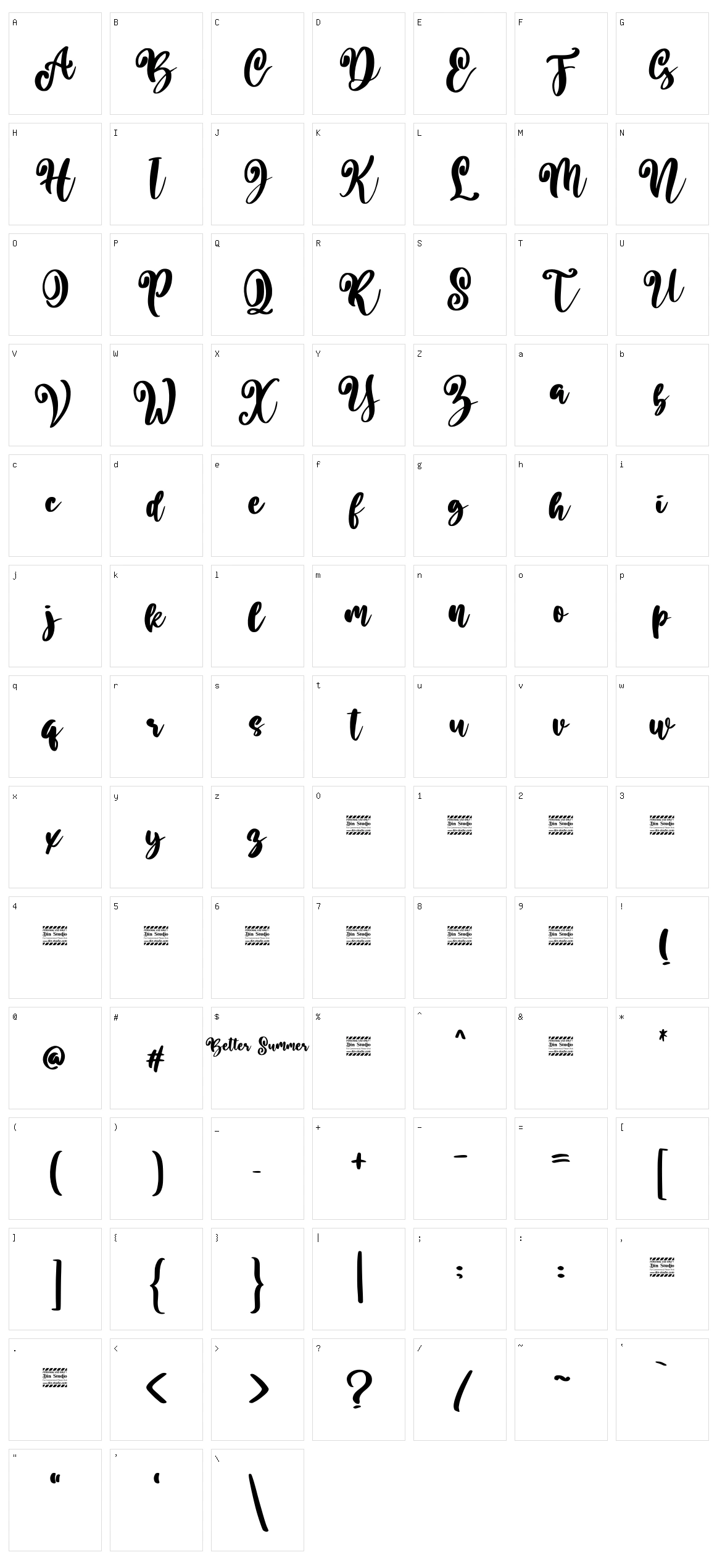
The free font Better Summer is carefully designed by Din Studio, showcasing a thoughtful balance of creativity and usability and falls under the Script font style. When you download the ZIP file, it contains only 298.77 KB of font files, making it lightweight and quick to download. Please review the license details below to understand permitted usage and distribution rights. If license information is not available, we recommend using this font for personal projects only or contacting the author directly for commercial usage permissions.